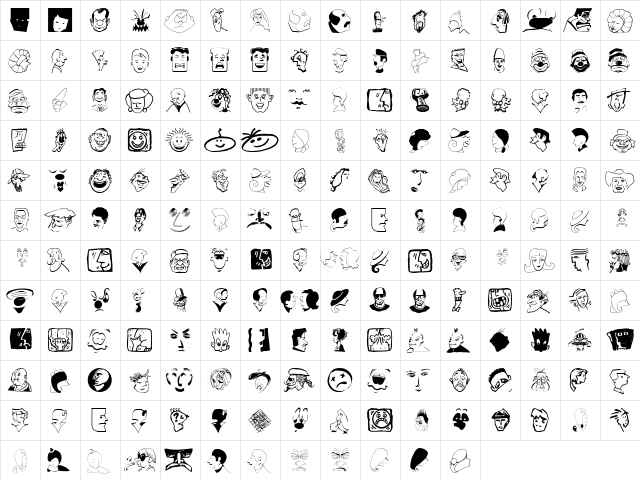
CartoonHeads Regular
Design Context for CartoonHeads Typeface
CartoonHeads has an approachable, lighthearted character — its loose, expressive forms are well-suited to children's content, casual branding, and fun-first design.
Font Pairing: Pairs well with a rounded or humanist sans for body copy, maintaining the friendly tone without relying on CartoonHeads to carry extended reading.
Pro Tip: Avoid using CartoonHeads for long passages of text — it works best for headlines, labels, and short calls to action.